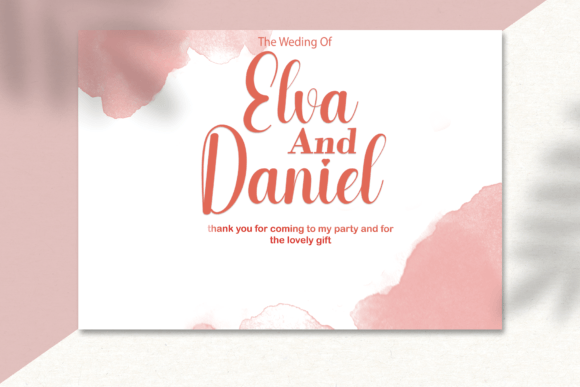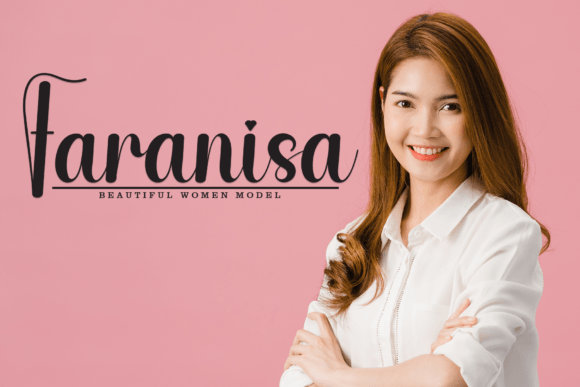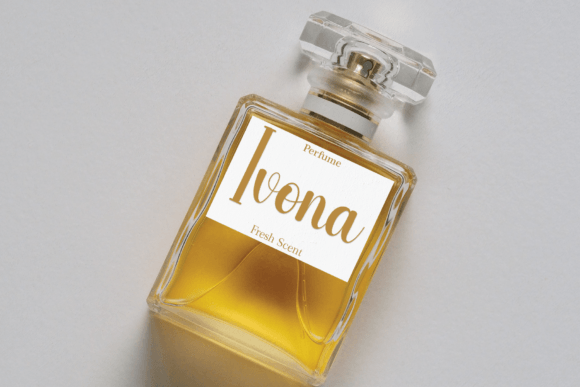
Introduction to Sandy Chubby Font
Have you ever stumbled upon the perfect font while working on a creative project, and it completely changes the direction of your design? For many designers, this is a familiar experience. Recently, I discovered the charming Sandy Chubby Font, and I’m excited to share its unique qualities with you.
This delightful handwritten font adds a touch of warmth and friendliness to any design. With its fresh and neat appearance, the Sandy Chubby Font is perfect for writing wedding invitations, cards, or any other project that requires a fun and approachable feel.
Sandy Chubby Font
- High-quality font with a unique, playful design, perfect for creative projects and adding a personal touch.
- Features a transparent background, allowing for seamless integration into any design, from digital to print media.
- Designed with a wide range of applications in mind, from advertising and marketing to graphic design and editorial content.
- Includes a variety of weights and styles, offering flexibility and versatility for designers working on different creative projects.
Honest Review: Sandy Chubby Font
I recently stumbled upon the Sandy Chubby Font, and I’m excited to share my honest thoughts on this design resource. Overall, I’m impressed with the quality and uniqueness of this font.
- ✨ Unique and playful design that adds a touch of whimsy to creative projects
- ✨ High quality vector files for crisp and clear display on various devices
- ✨ Comes with a transparent background, making it easy to integrate into any design
One of the standout features of the Sandy Chubby Font is its versatility. I found it to be perfect for a variety of creative projects, from children’s book illustrations to social media graphics.
- ⚠️ Limited character set, which may not be ideal for longer text-based projects
- ⚠️ Not suitable for professional or formal designs due to its playful and casual nature
Overall, I would recommend the Sandy Chubby Font to designers looking for a unique and high-quality design resource for their creative projects. While it may have some limitations, its strengths far outweigh its weaknesses.
Tips for Getting the Most Out of Sandy Chubby Font
To get the most out of the Sandy Chubby Font, use it in conjunction with other high-quality design resources. You can also experiment with different font sizes, colors, and styles to create a unique look. Additionally, consider using the font with a transparent background to add an extra layer of creativity to your design.
The Sandy Chubby Font is a versatile design resource that can be used in a variety of creative projects. Some common use cases include:
- Branding
- Infographics
- Print materials
Yes, the Sandy Chubby Font includes a transparent background option, allowing you to easily integrate it into your design project without any visual distractions. This feature is particularly useful when working with complex compositions or layered designs.